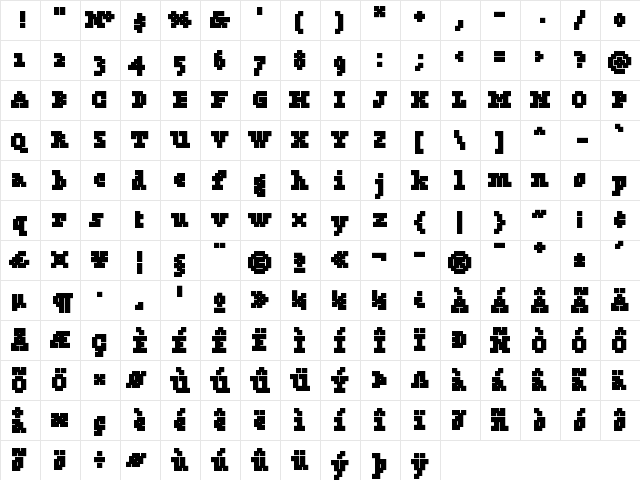
Fat Bit Regular
| Designer | will.i. |
Design Context for Fat Bit Typeface
Fat Bit takes a measured approach to typography — its balanced proportions and neutral character make it a reliable workhorse for both digital and print work.